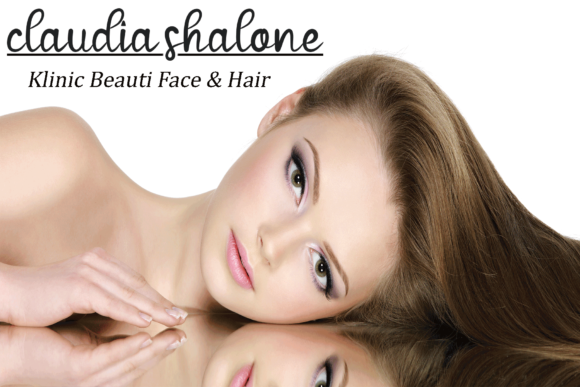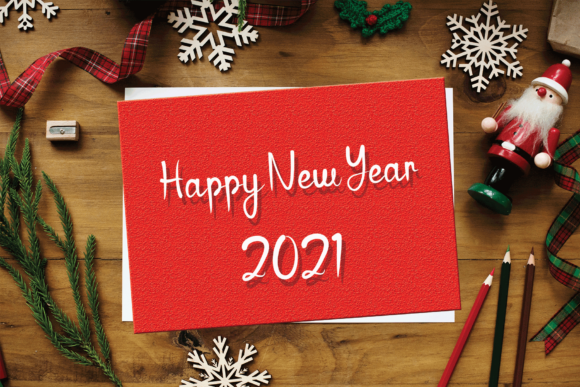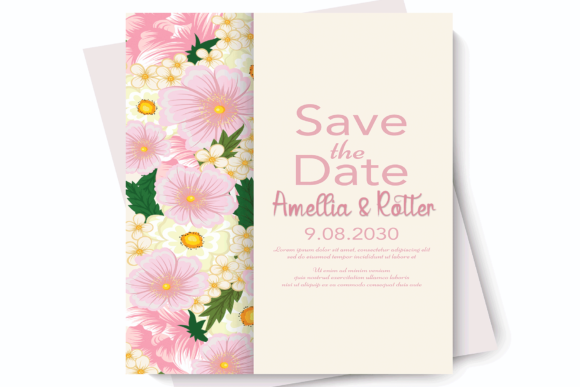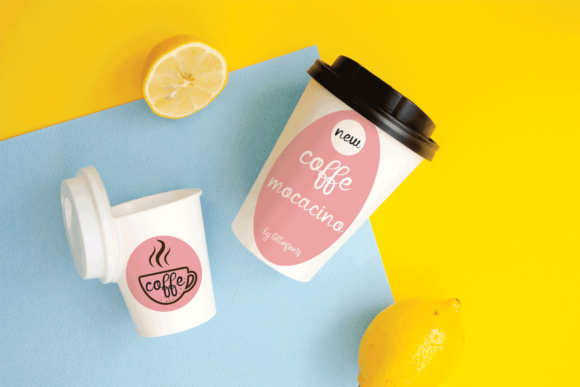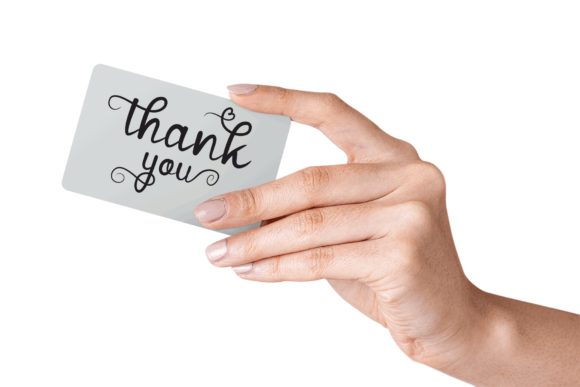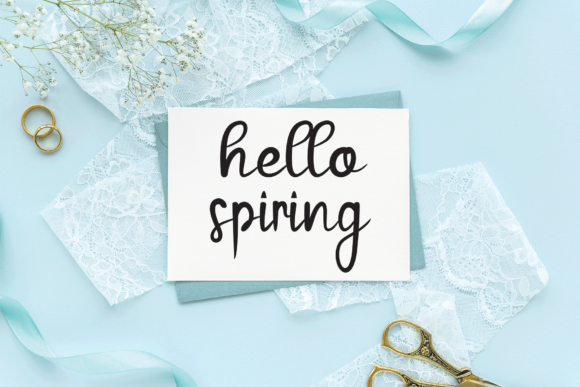
Wonderful Font
About Wonderful Font
Wonderful is a sweet and stylish handwritten font. Delicate and joyful, this font will instantly become your top choice. This font is PUA encoded which means you can access all of the glyphs and swashes with ease!